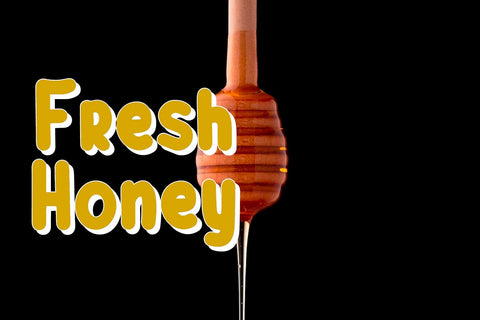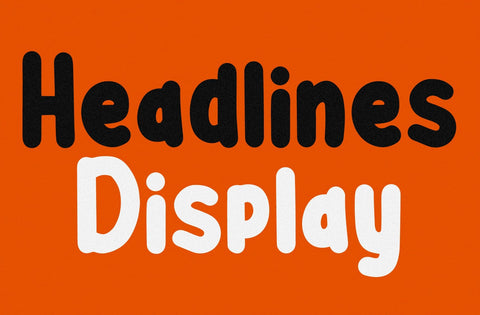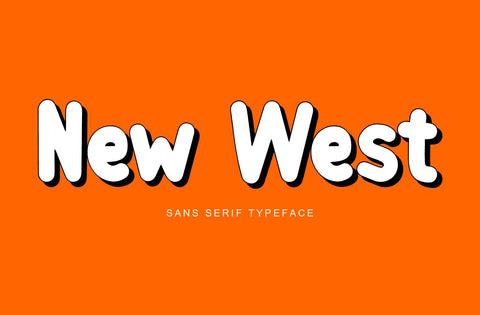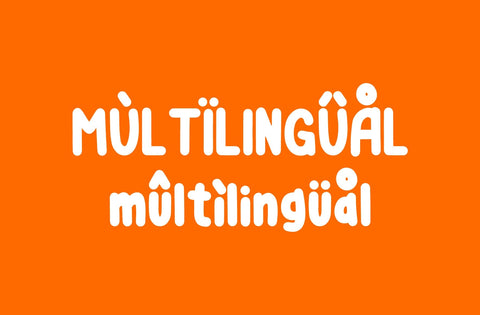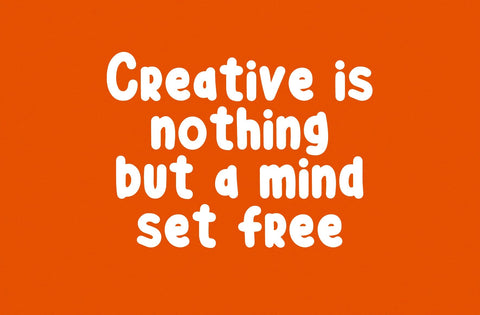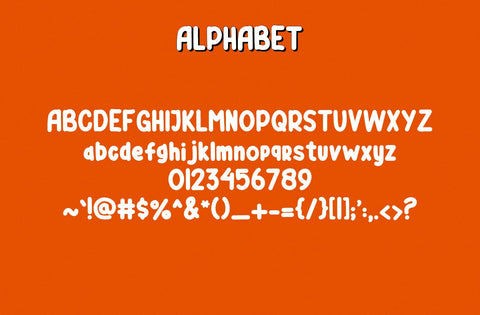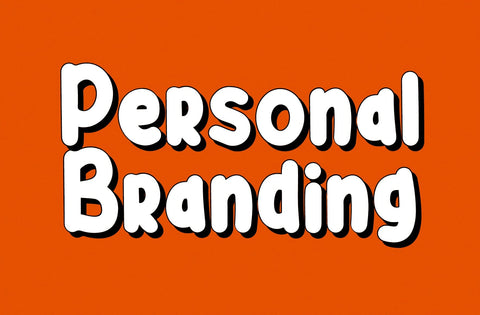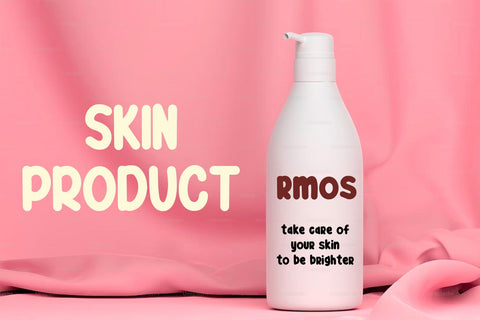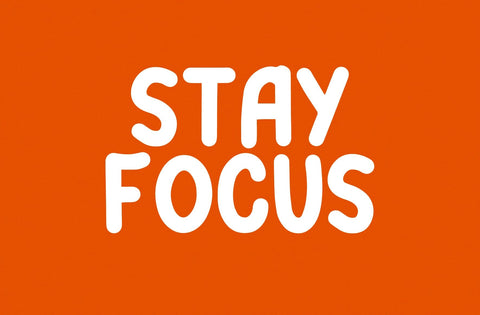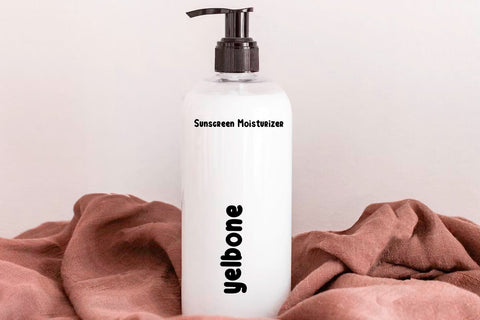
New West Display Font
New West is a modern clean soft round sans serif font. With bold stroke, fun character. To give you an extra creative work. New West font support multilingual and ligatures. This font is good for logo design, branding design, Social media, Movie Titles, Books Titles, a short text even a long text letter and good for your secondary text font with sans or serif. Make a stunning work with New West font.